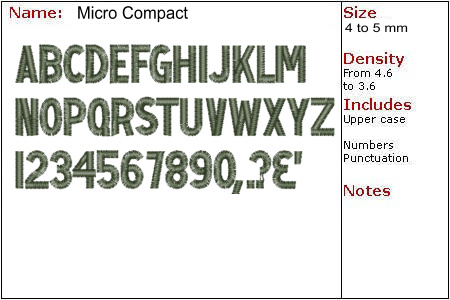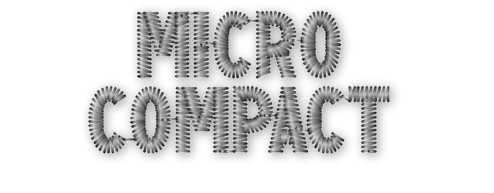
Micro Compact
If you need to fit a lot of text in a small space, this is a compact small font that will do the job for you For best results use the stitch type Zig-Zag Satin.